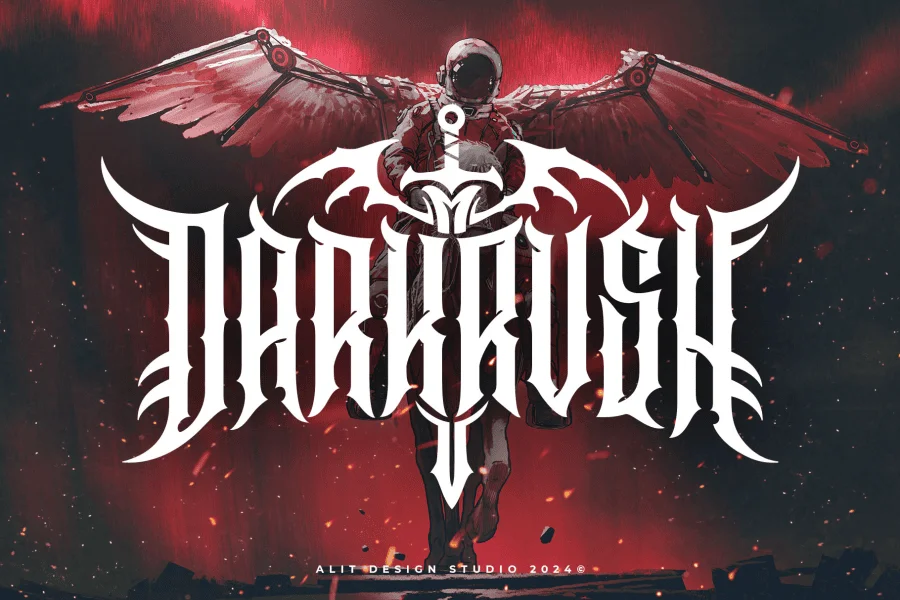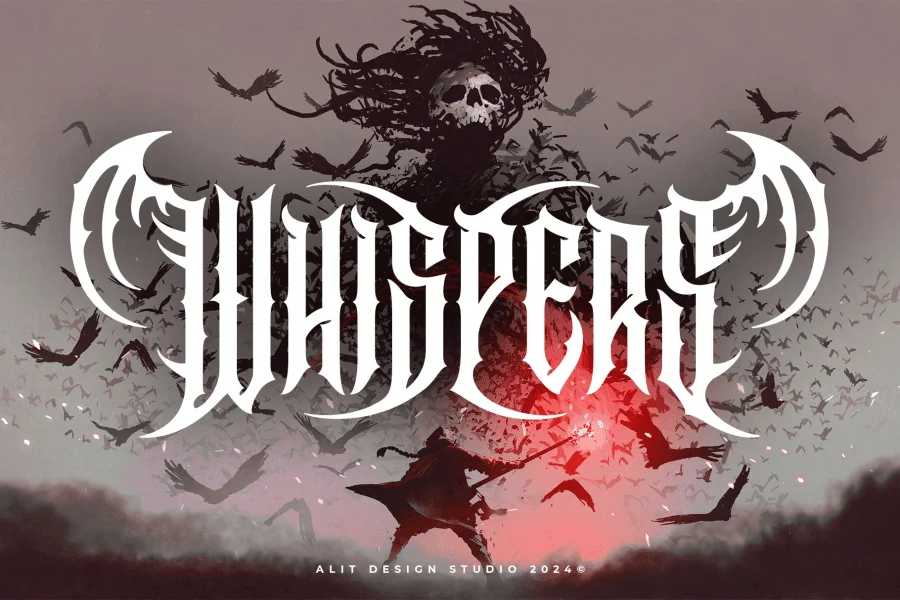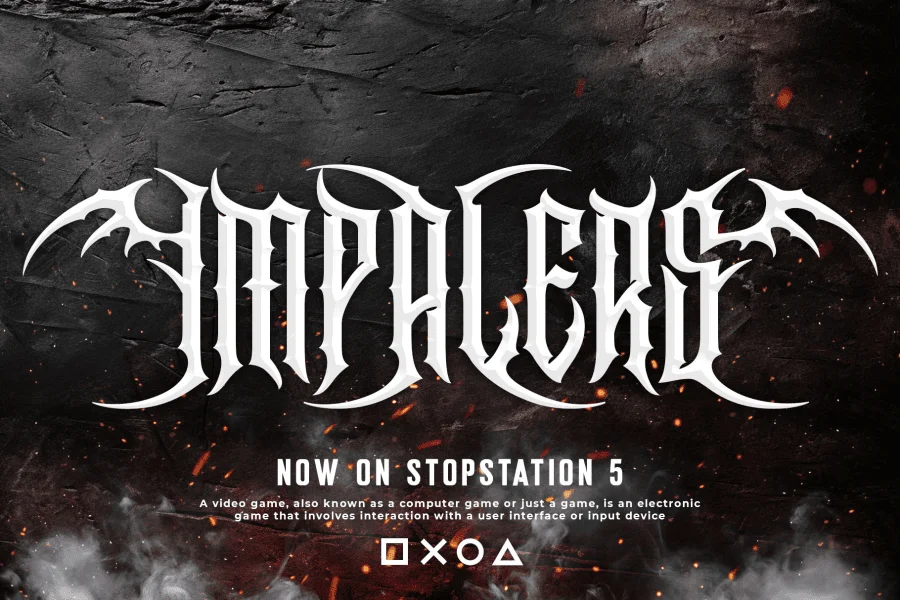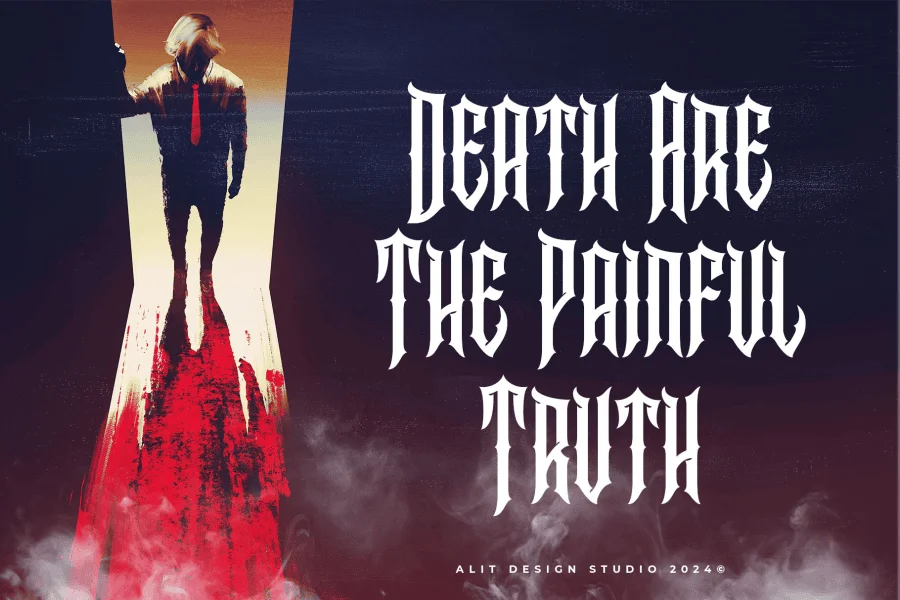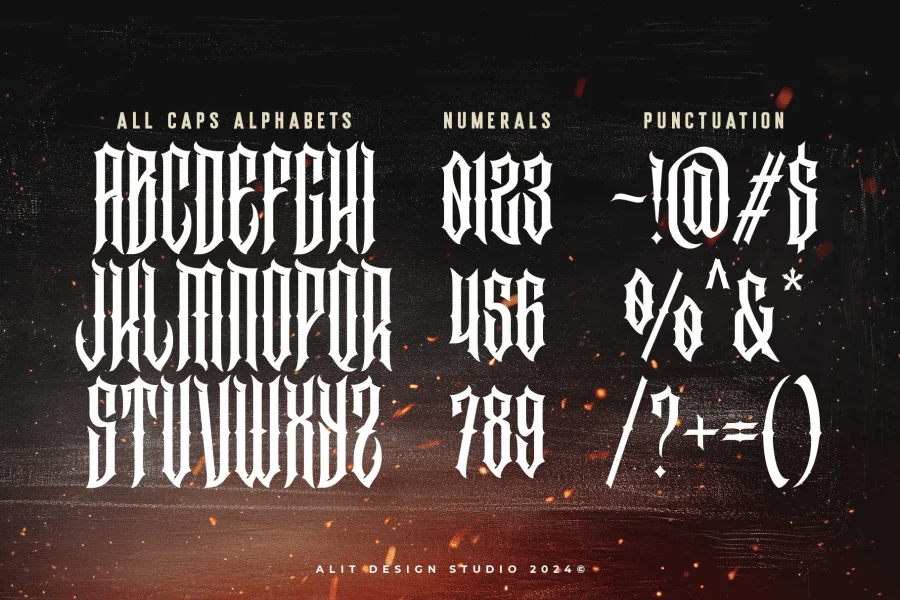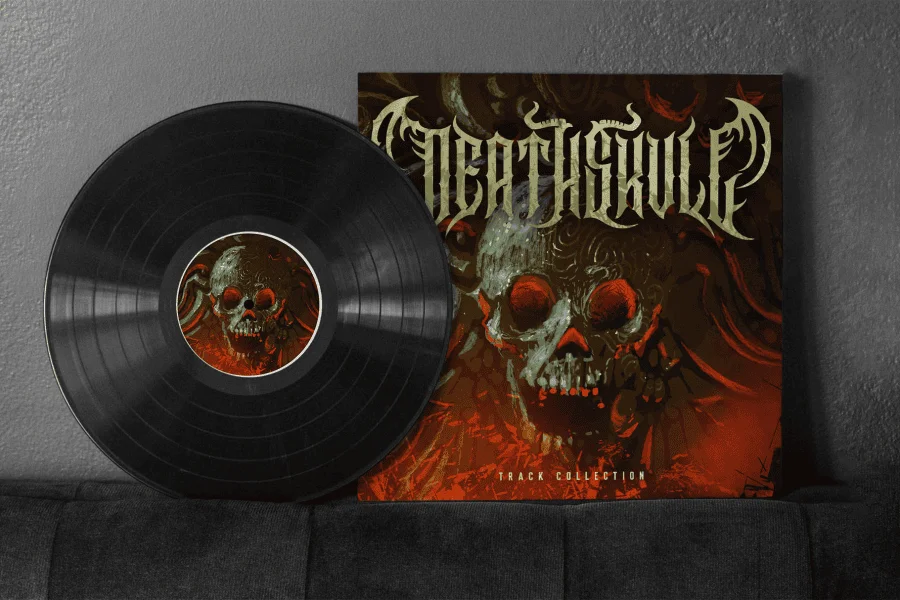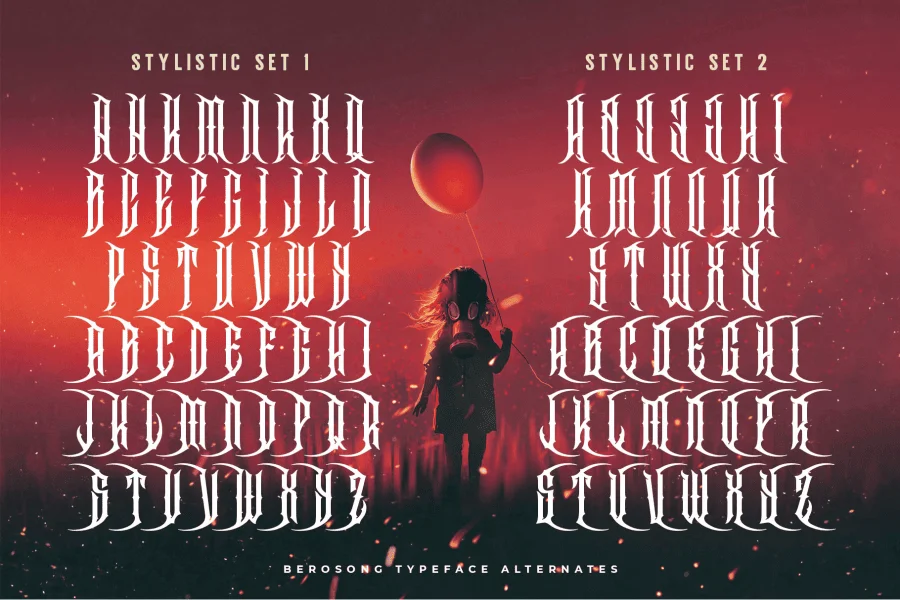
Berosong Typeface is a bold and dynamic font designed with a modern metal aesthetic, perfect for evoking a sense of intensity and power. This typeface is ideal for projects that demand a striking and edgy appearance, including game titles, music album covers, movie posters, and other creative designs that embrace a dark or contemporary theme.